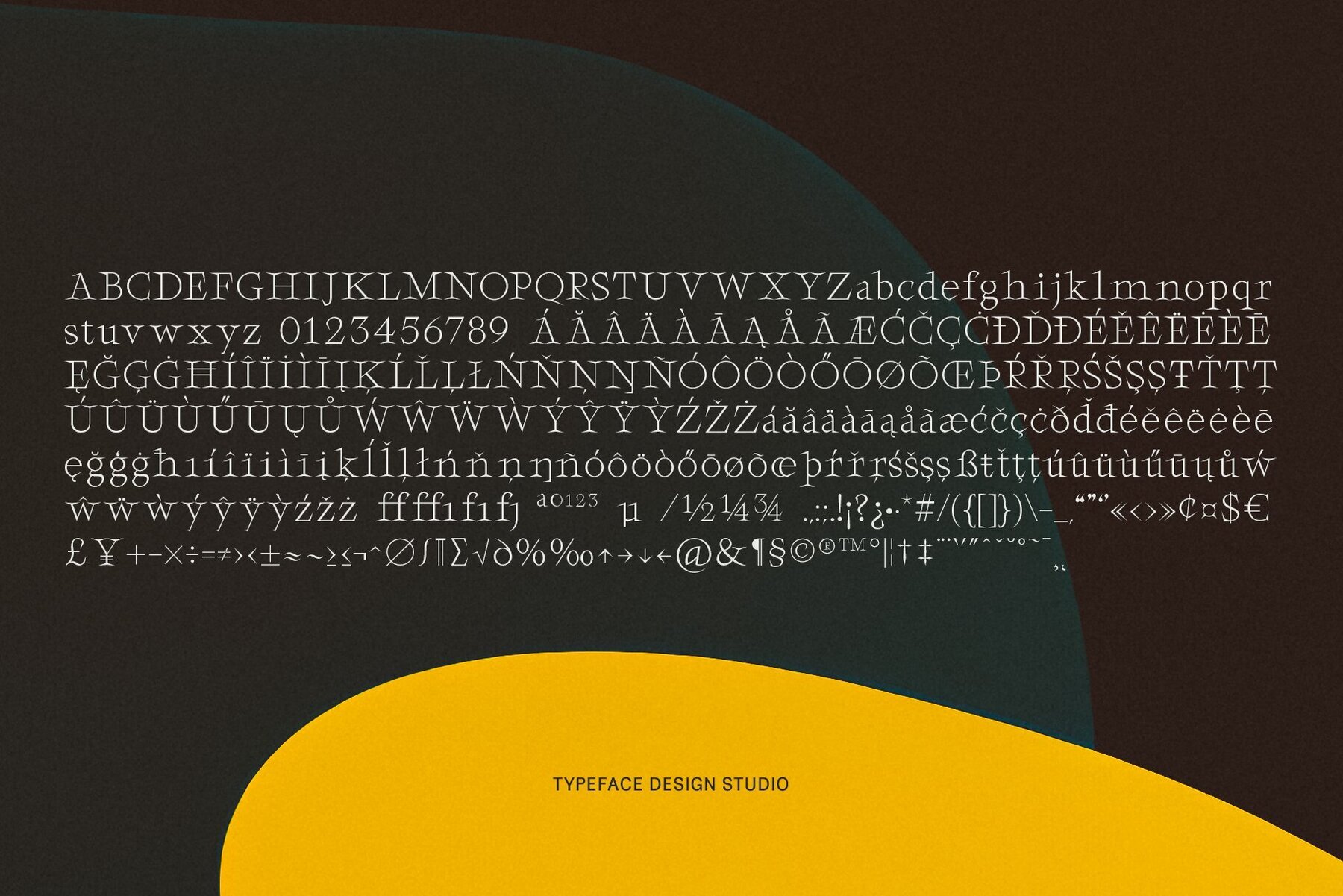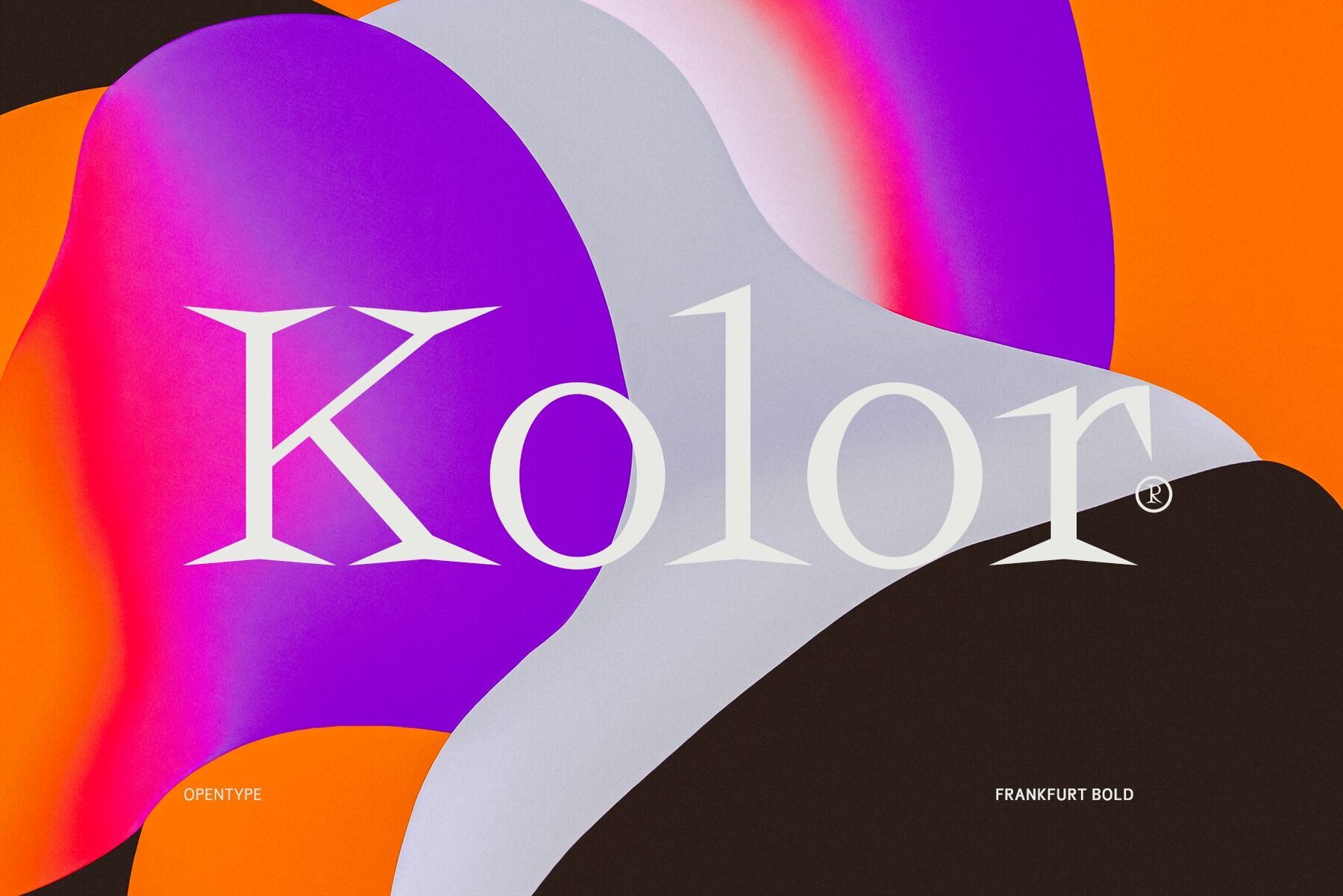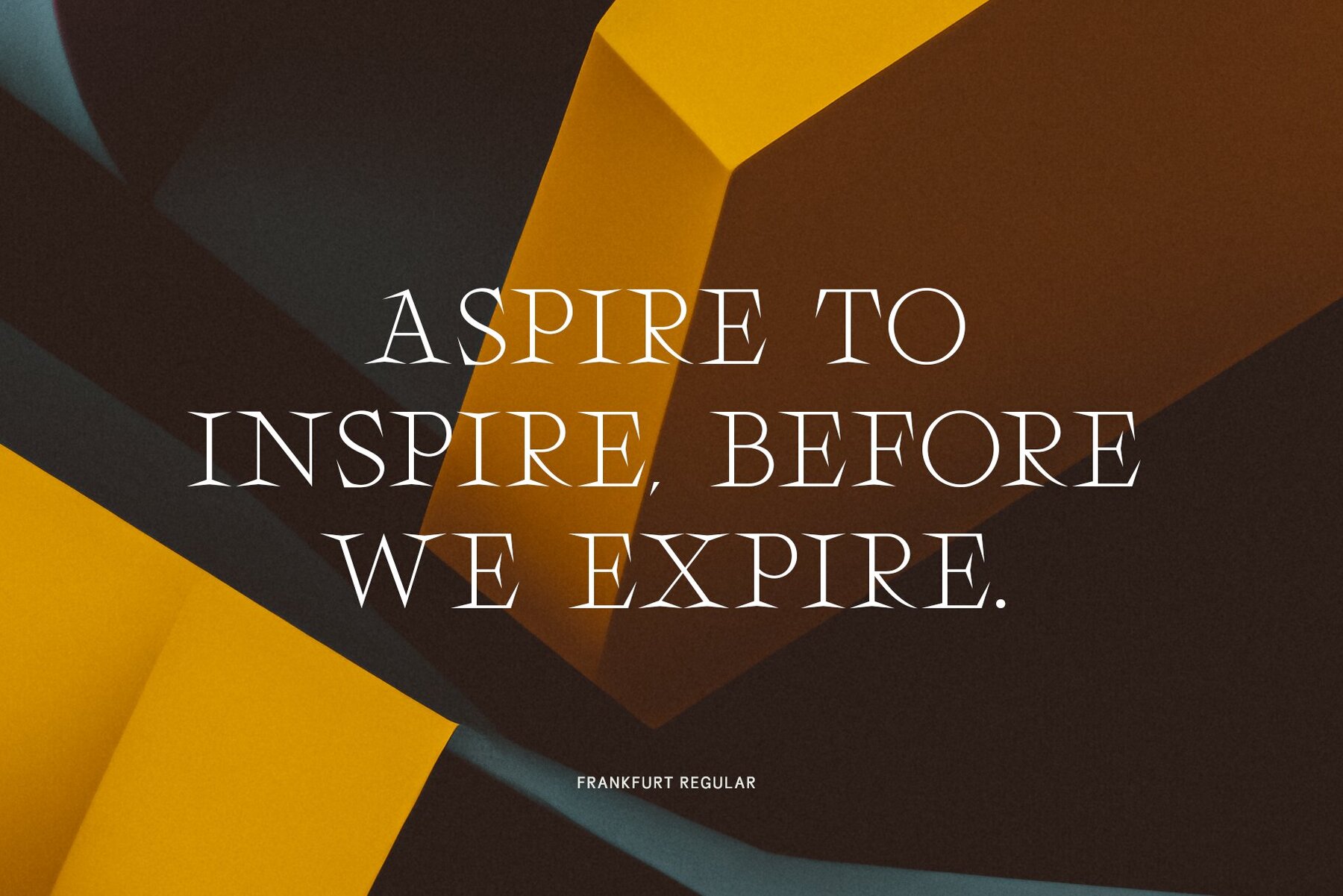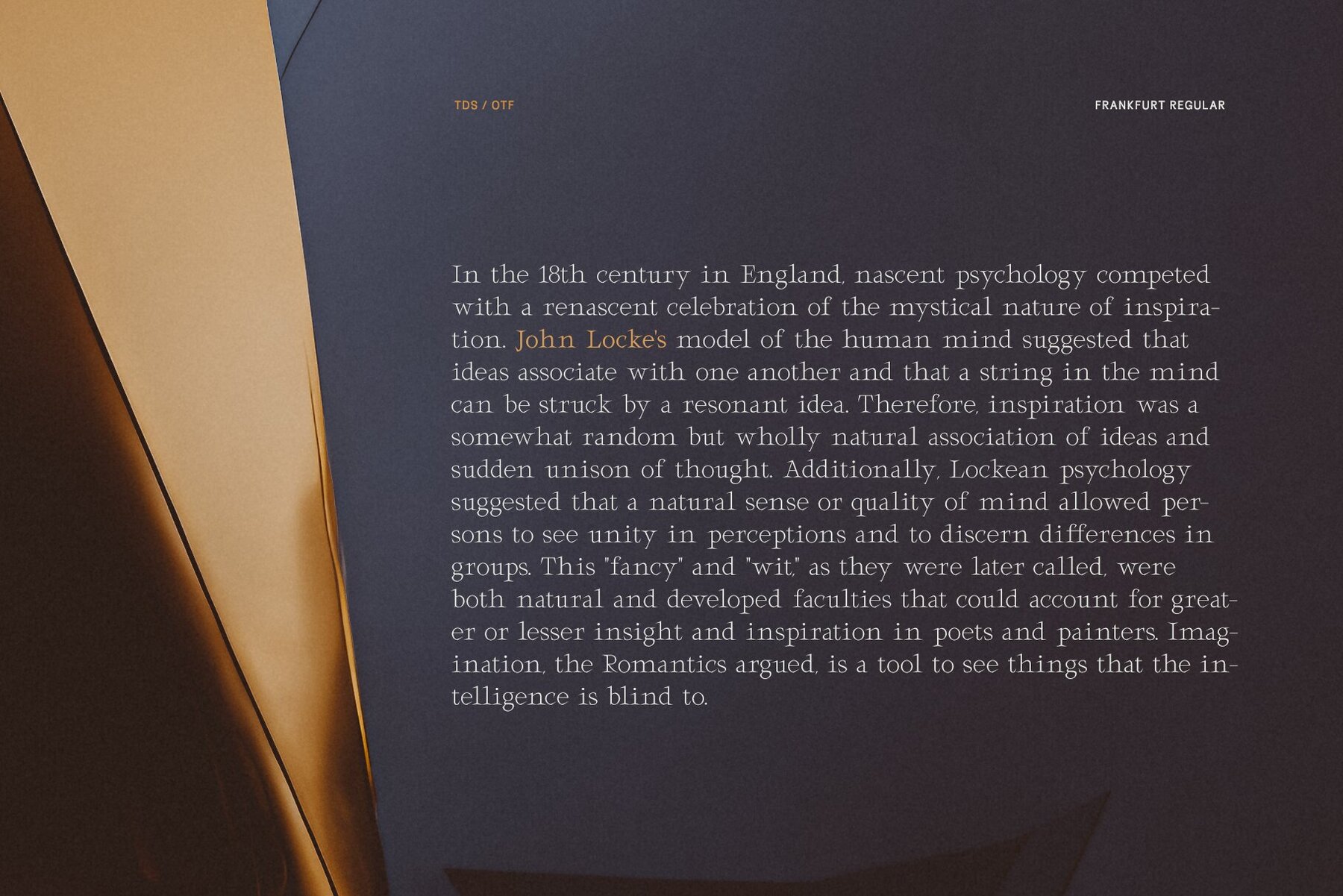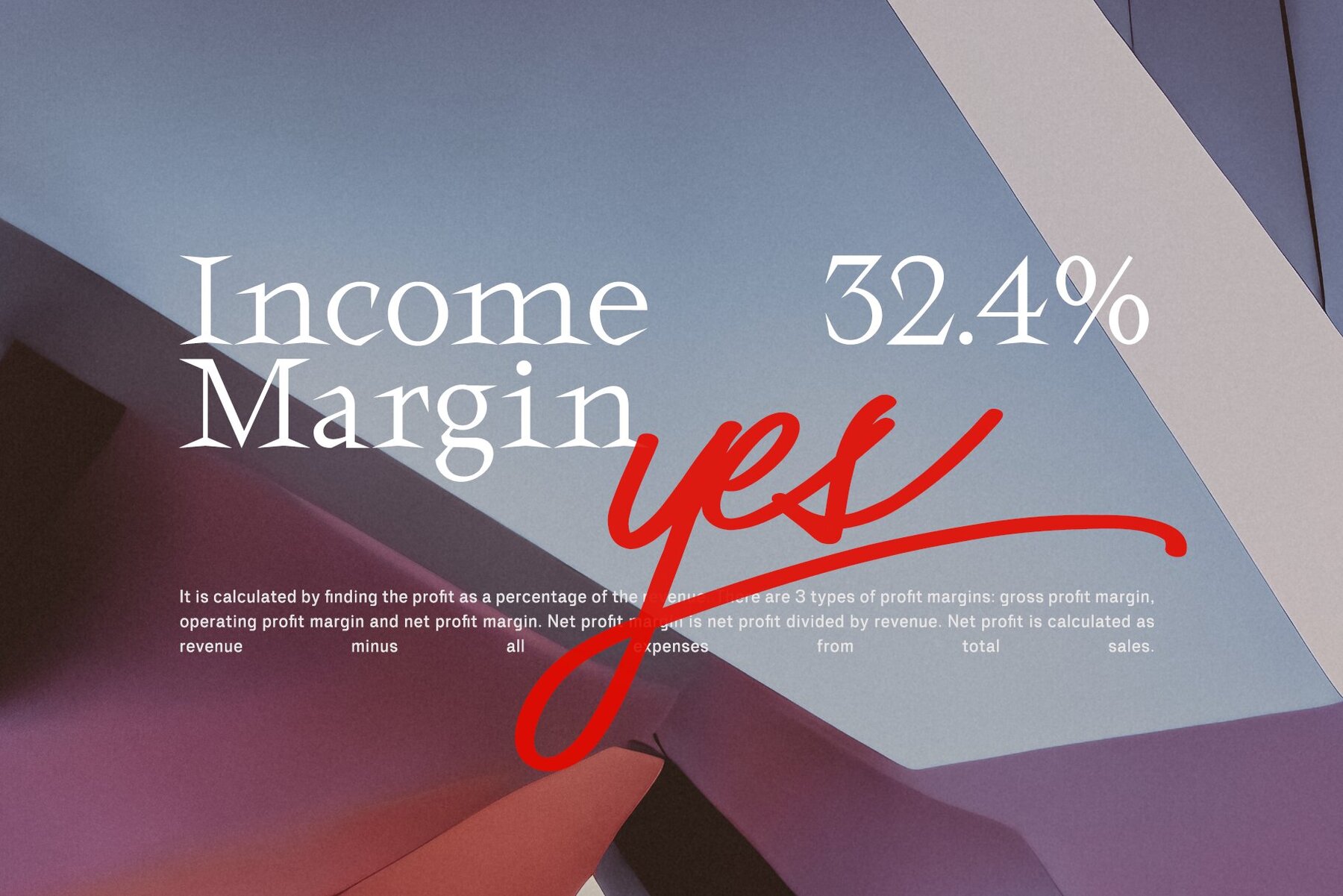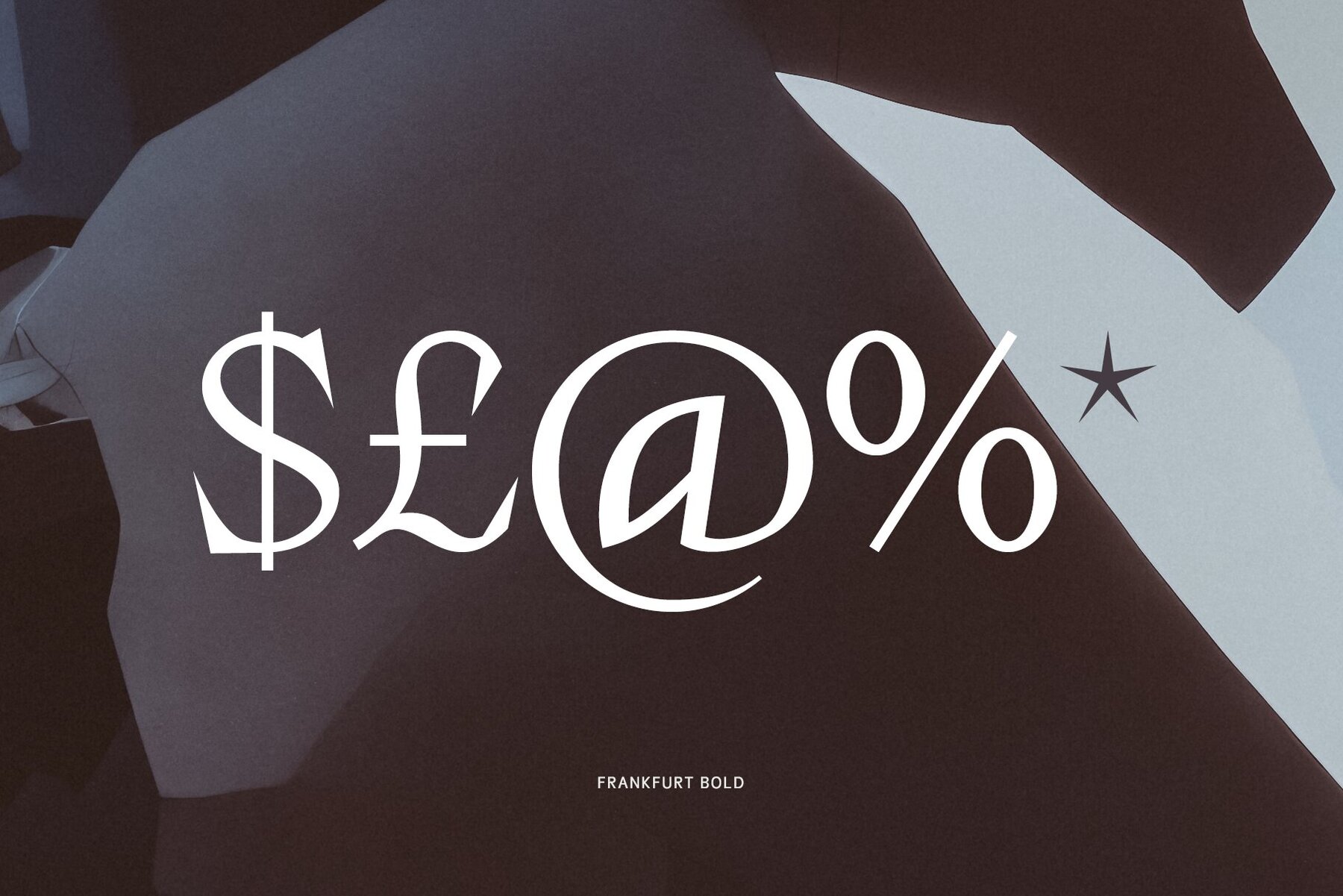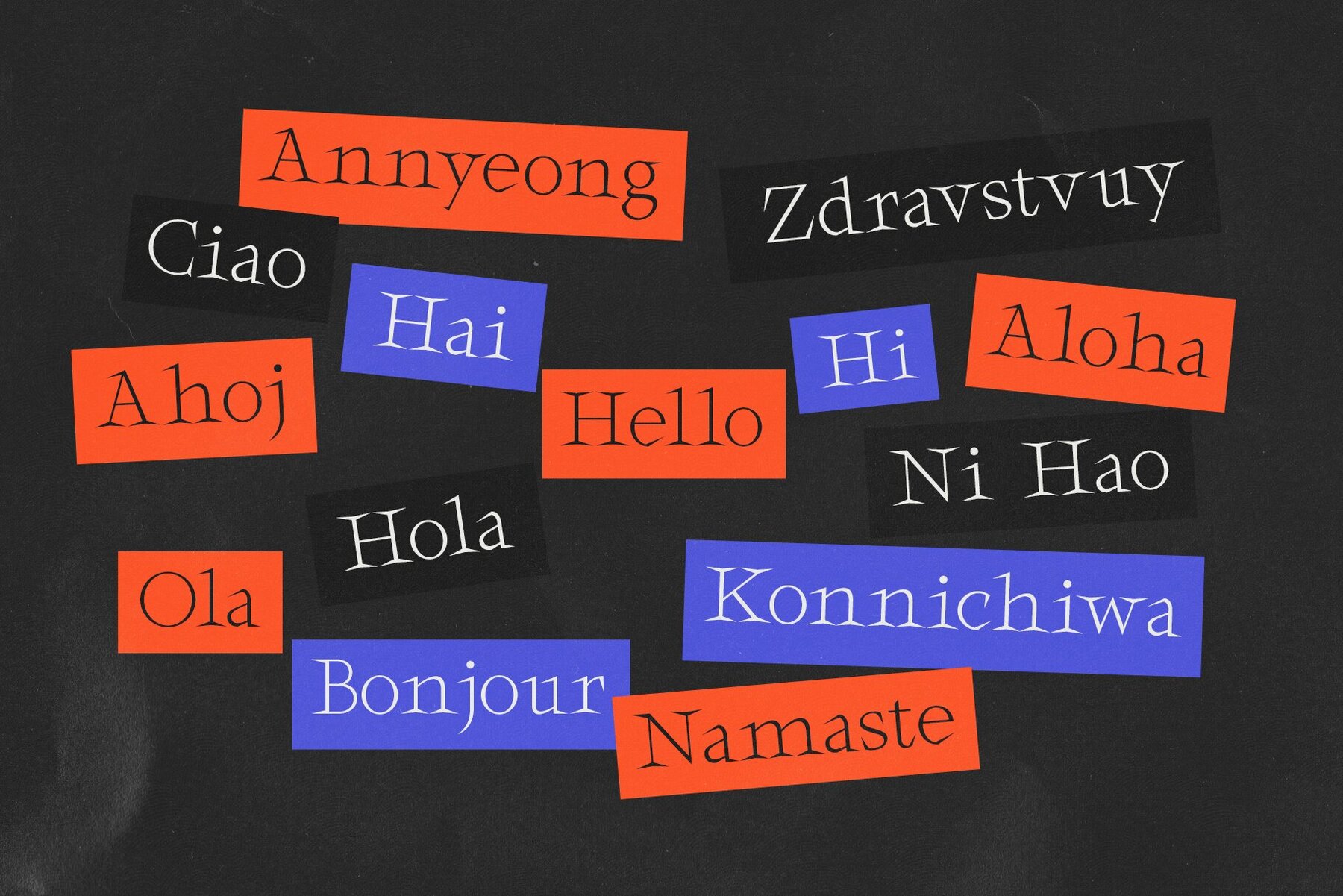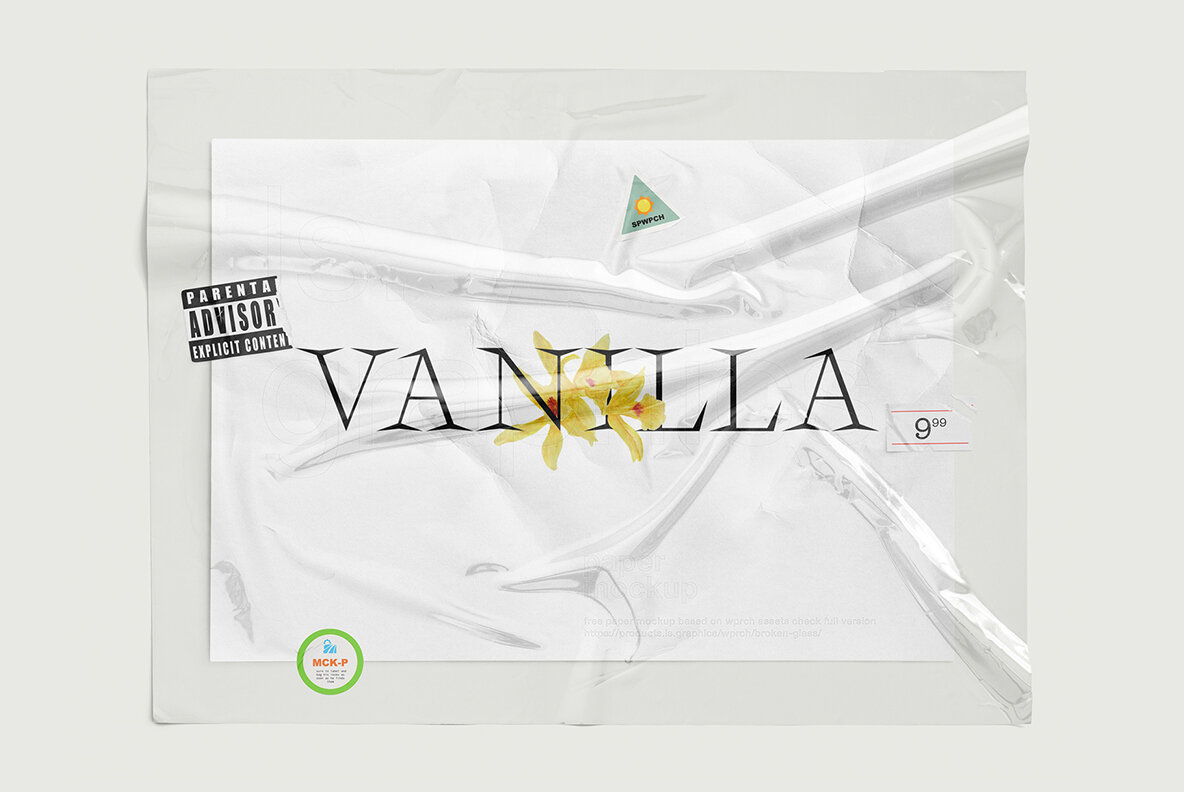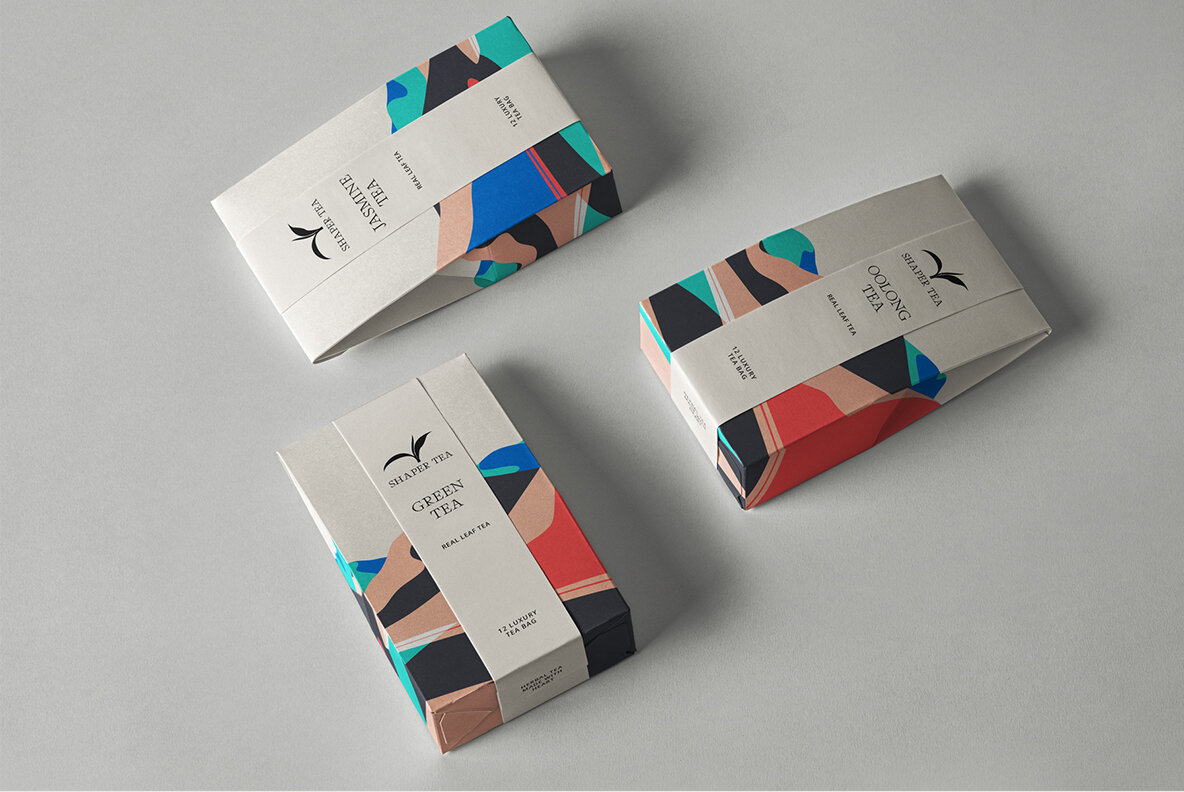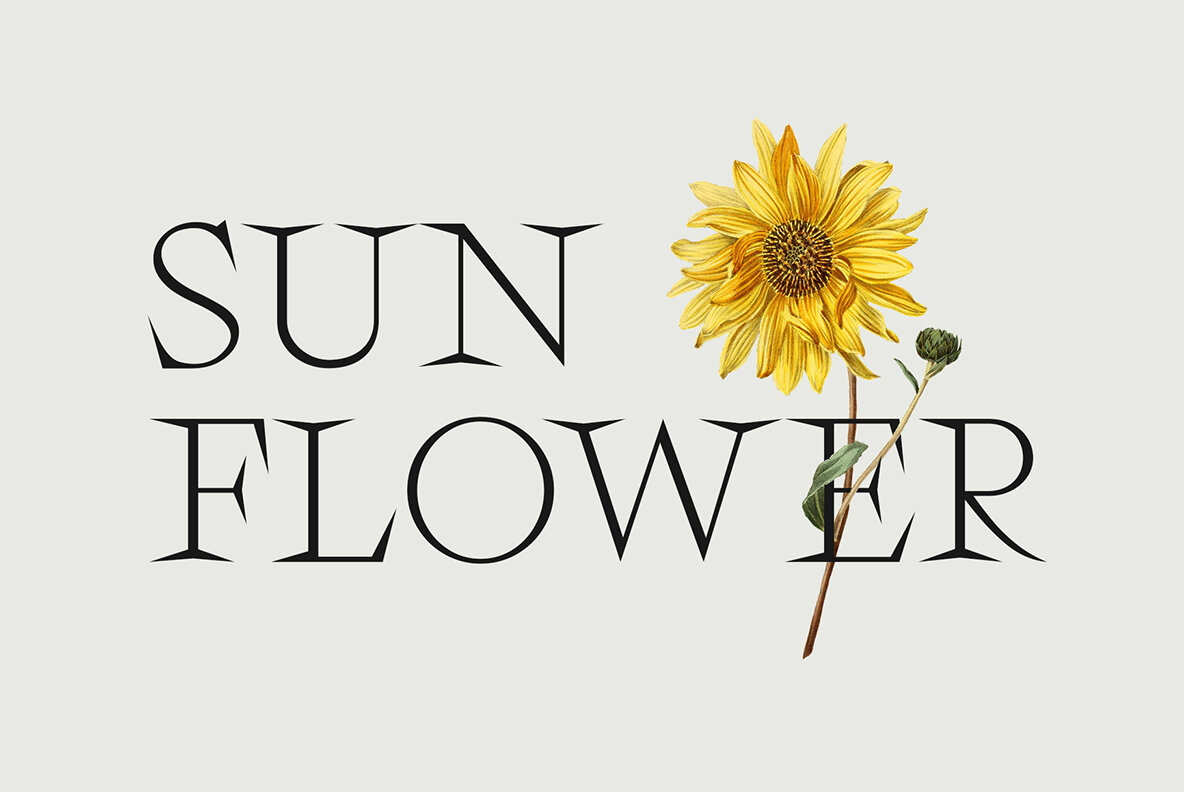
Frankfurt Font
Frankfurt is a serif typeface crafted with modern sensibility in mind. This distinctive serif font family offers an impressive range that is both sharp and decisive, and can be combined with other fonts to create something truly unique.
Perfect for marketing, the modern corporate logo, or trademark design, Frankfurt includes uppercase, lowercase, ligatures, punctuations, symbols, marks, numbers and multi-language support. With three style options - Thin, Regular and Bold - Frankfurt can also be used for many graphic design needs such as magazines, posters and even UI/UX designs.